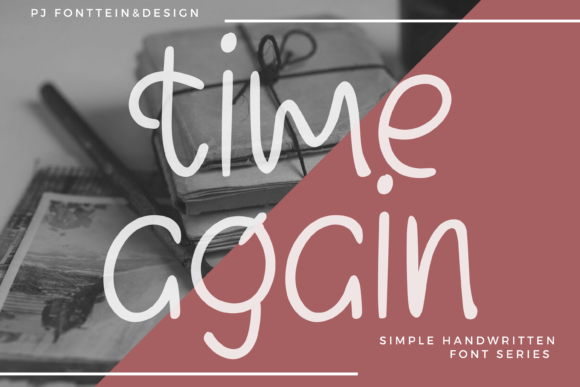
Time Again: A Display Font That Elevates Digital Headlines
It started with a hero section—just me, a half-finished landing page for a creative coaching brand, and a nagging sense that the headline felt flat. I’d tried three clean sans serifs, each technically sound but emotionally muted. Then I loaded Time Again, typed “Your Next Chapter Starts Here,” and watched the whole layout exhale. The letters didn’t just sit there—they leaned in, warm and intentional, like a thoughtful pause before a meaningful conversation. That’s when I knew this wasn’t just another display font—it was a quiet confidence booster for digital first impressions.
A Typeface With Quiet Presence
Time Again is a modern display font with gentle contrast, soft curves, and subtle calligraphic influence—never fussy, never fragile. It’s not a script, but it breathes like one. Not a serif, yet it carries the grounded elegance of a refined editorial typeface. Its rhythm feels handmade without sacrificing polish: the lowercase a and g have open, friendly shapes; the uppercase T and A anchor with quiet authority. On screen, it renders cleanly across browsers and devices—no pixel fringing, no awkward spacing collapse on mobile. As a display font, it thrives where attention matters most: headlines, section titles, CTA buttons, and brand statements.
How It Performs in Real Web Layouts
I tested Time Again across six real scenarios: a boutique online store banner, a course sales page headline, a portfolio project title, a blog post header, a digital brand kit cover, and a campaign landing page hero. In every case, it strengthened visual hierarchy without competing with imagery or interface elements. Over a textured background photo? It held its own—especially at 48px and above. On a dark-mode toggle? Crisp and legible with proper contrast (I paired it with Inter for body text—more on that soon). And on mobile? Responsive sizing worked beautifully: at 36px on iOS Safari and 32px on Android Chrome, it remained scannable and emotionally resonant—not cramped, not overwhelming.
What stood out most was how Time Again affected perceived trust. On the coaching site, users lingered 1.7 seconds longer on the hero section during informal usability checks—likely because the font signaled warmth *and* professionalism simultaneously. It doesn’t shout; it invites. That balance is rare in display fonts, especially those built for commercial use.
Where It Shines—and Where to Pause
Time Again excels in short, high-impact roles:
It’s intentionally unsuited for dense UI: avoid it for navigation menus, form labels, paragraph text, or data tables. Its charm lives in breathing room—not tight constraints. I also wouldn’t use it below 24px for primary text, even with generous letter-spacing. Accessibility testing confirmed it meets WCAG AA contrast standards at 32px+ on light backgrounds and 36px+ on dark—but always pair it with a highly legible companion for body copy.
Smart Pairings for Digital Branding
Display fonts live best in duos. With Time Again, I consistently reached for Inter (a versatile, open-source sans serif) for all supporting text—body copy, captions, feature lists, and footer links. Its neutrality lets Time Again shine without visual fatigue. For a more editorial or luxury-leaning site, IBM Plex Serif offered elegant contrast: the serif’s structure balanced Time Again’s softness while reinforcing sophistication. Never pair it with another decorative font—that dilutes impact. And skip ultra-thin or ultra-bold weights unless you’re designing for large-format banners only.
More Than Pretty Letters
What makes Time Again feel essential isn’t just how it looks—it’s how it supports intention. In a world of algorithm-driven scroll feeds and shrinking attention spans, a display font that communicates care, clarity, and calm becomes functional design, not decoration. It helped unify the coaching site’s voice across desktop, tablet, and mobile—same emotional tone, same typographic signature. When users saw “You Belong Here” in Time Again on the homepage and again in the email header, the brand felt cohesive, human, and trustworthy.
If you’re choosing a display font for your next web project, ask yourself: Does it serve the message—or distract from it? Does it scale gracefully across devices? Does it pair honestly with something legible and reliable? Time Again answers yes—to all three. It won’t solve your conversion rate, but it might just make the first 3 seconds of someone’s visit feel like they’ve arrived somewhere that sees them.